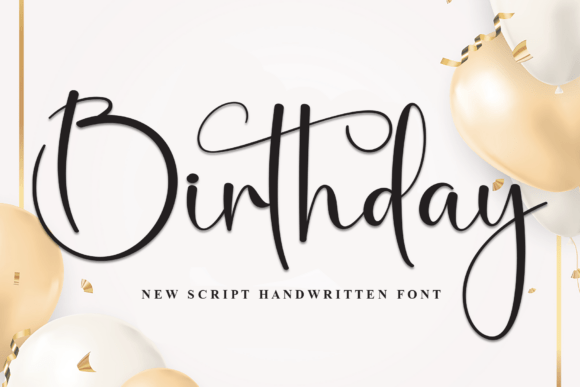
Unleash the Magic of Your Birthday Font
Do you remember the moment you first saw a beautifully designed birthday invitation and thought, ‘Wow, that’s exactly what I want my party to look like’? For many of us, it’s the little details that make a big impact – and for designers, the perfect font can be the difference between a dull and a dazzling design. That’s where the Birthday Font comes in, a stylish handwritten script font that exudes elegance and charm.
This versatile font is perfect for adding a personal touch to invitations, branding, or social media, bringing a sense of warmth and creativity to any design. Its fluid strokes and natural flow create a captivating, sophisticated look that’s sure to impress. Whether you’re a seasoned designer or a creative enthusiast, the Birthday Font is a valuable addition to your toolkit, offering endless possibilities for making your designs stand out.
Birthday Font Key Features
- Unique Characteristic: Features a unique, cursive design with decorative flourishes, making it ideal for special occasions like birthdays.
Birthday Font Review
Overall, I was excited to dive into the Birthday Font and see what it had to offer. Here’s my honest take on this design:
- Unique and playful design: Birthday Font is a fun and quirky font that’s perfect for adding a celebratory touch to any design.
- Perfect for birthday invitations and parties: As the name suggests, this font is ideal for creating eye-catching birthday invitations, party decorations, and more.
- Easy to read: Despite its playful nature, Birthday Font is still easy to read and understand, making it a great choice for a wide range of designs.
- Limited versatility: While Birthday Font is great for birthday-themed designs, it may not be the best choice for more formal or professional projects.
- Not ideal for body text: Due to its playful nature, Birthday Font may not be the best choice for large blocks of text, as it can become overwhelming and difficult to read.
- May not be suitable for digital use: Depending on the design, Birthday Font may not be the best choice for digital use, such as website headings or mobile apps, as it may not be legible at smaller sizes.
Overall, I think Birthday Font is a fun and creative choice for designers looking to add a celebratory touch to their projects. While it may have some limitations, it’s perfect for birthday-themed designs and can add a unique touch to any project.
Use the Birthday Font to create eye-catching headings and titles for birthday invitations, party decorations, and social media posts.
Experiment with different text styles and colors to match your design theme.
Birthday Font is ideal for:
- Birthday invitations and party decorations
- Social media posts and graphics
- Personalized birthday cards and gifts